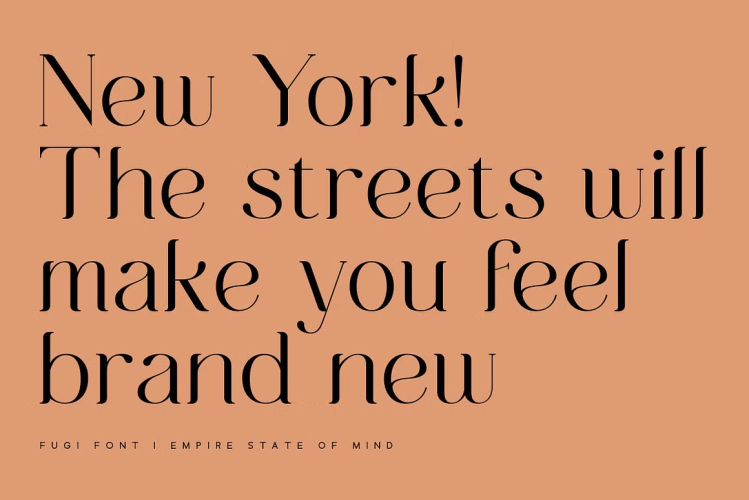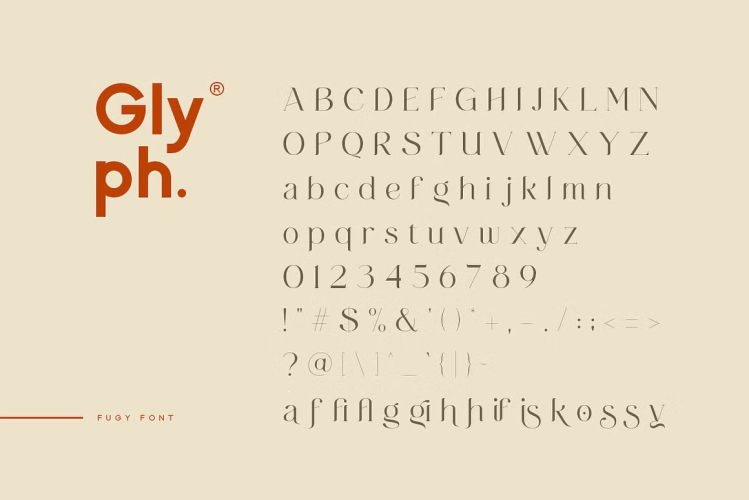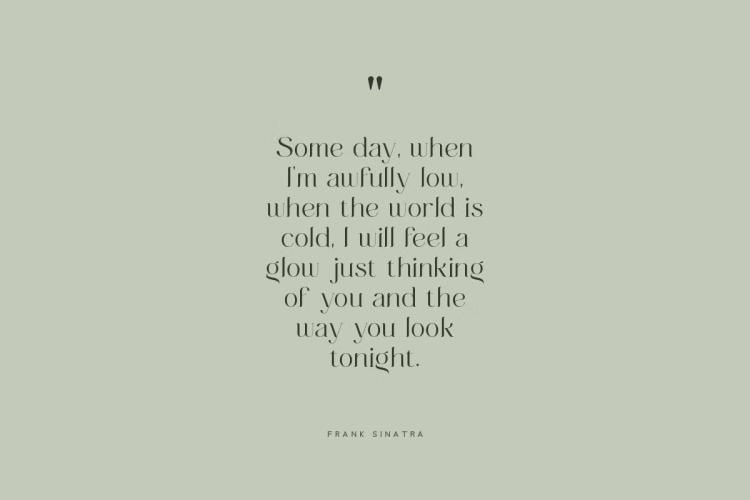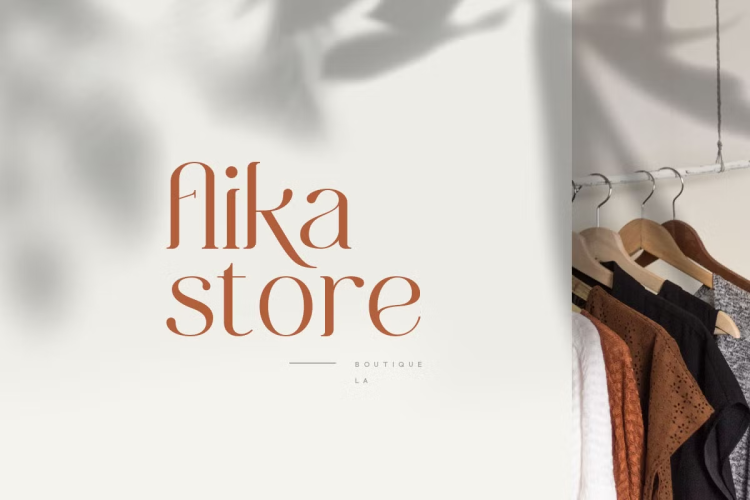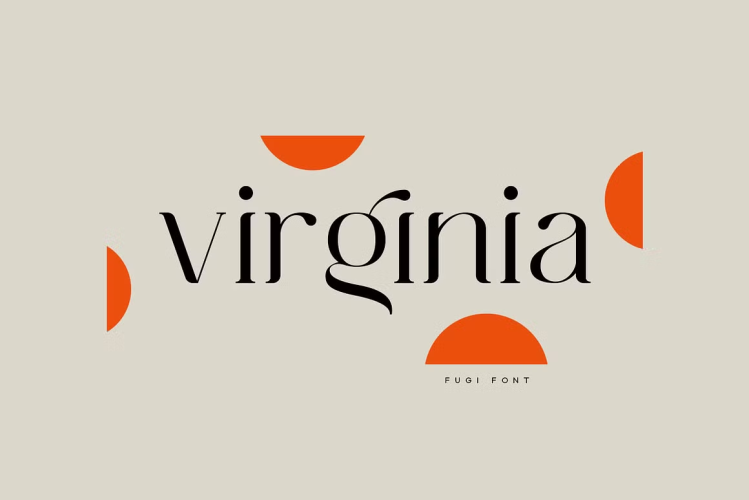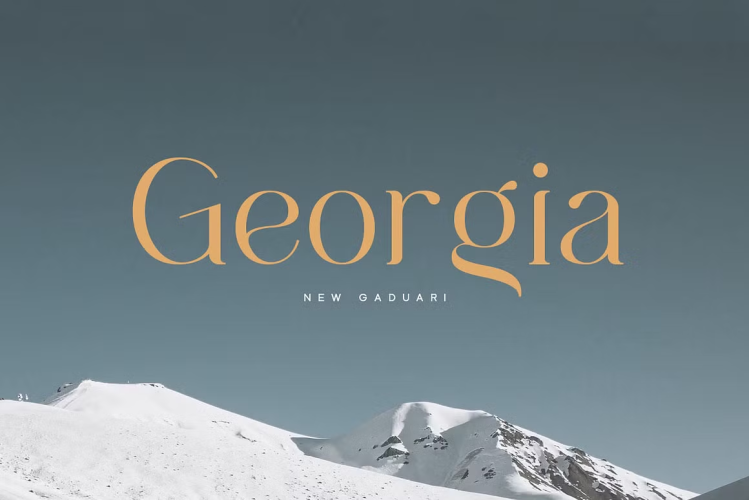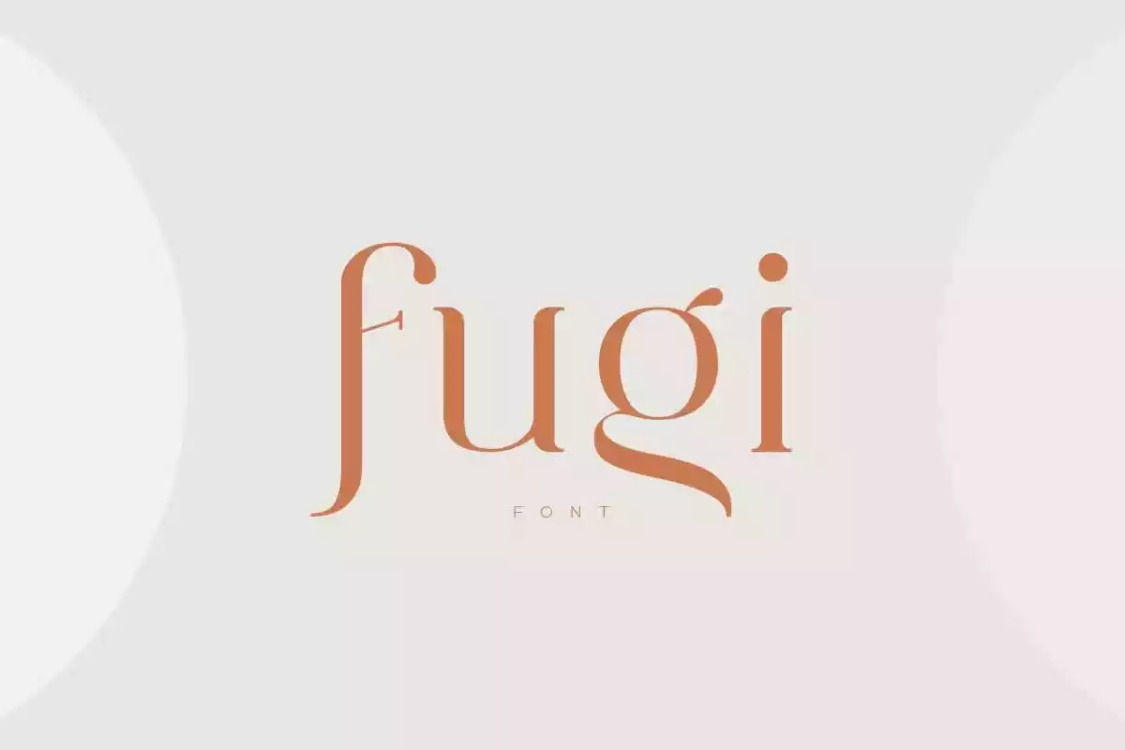
Fugi Font
Fugi is a modern fashion serif font; every letter has been carefully crafted to make your text look unique.
Where Fugi Font works best
Fugi Font gives long-form text a classic, trustworthy rhythm — ideal for magazine spreads, annual reports and book interiors.
Pair Fugi Font with generous letter-spacing for wordmarks in fashion, hospitality, wine and jewellery branding.
Use Fugi Font for slide titles in Keynote, PowerPoint or Google Slides to add authority without looking dated.
What is Fugi Font good for?